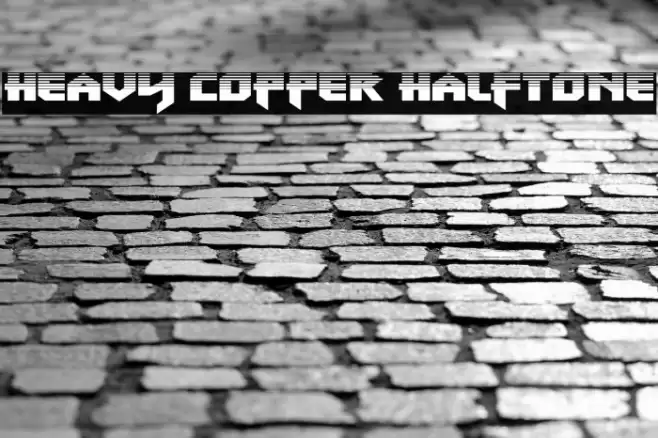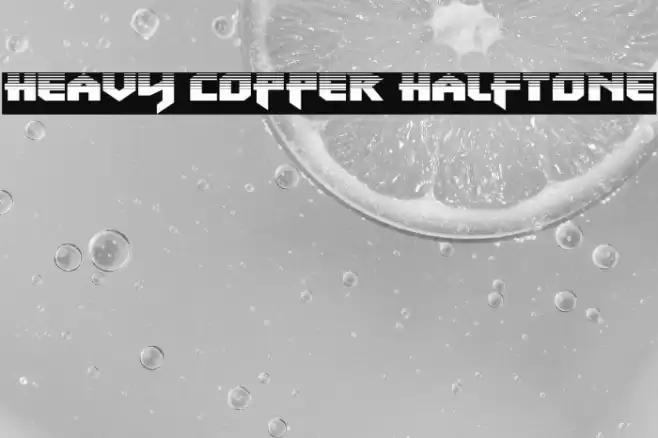
Heavy Copper Halftone Font
Heavy Copper Halftone Description
This font features a bold, geometric design with a distinctive halftone effect. The characters are constructed with horizontal lines that create a sense of depth and movement. The angular shapes and sharp edges give it a futuristic and industrial feel, making it stand out in any design. The uppercase letters are particularly striking, with a consistent pattern that runs through each character, while the numbers and special characters maintain the same bold aesthetic. This font is perfect for projects that require a modern, edgy look.
A bold, geometric font with a halftone effect and futuristic style from Regular fonts.
- Proposed Projects: Ideal for branding, posters, album covers, and any design needing a modern, edgy touch.